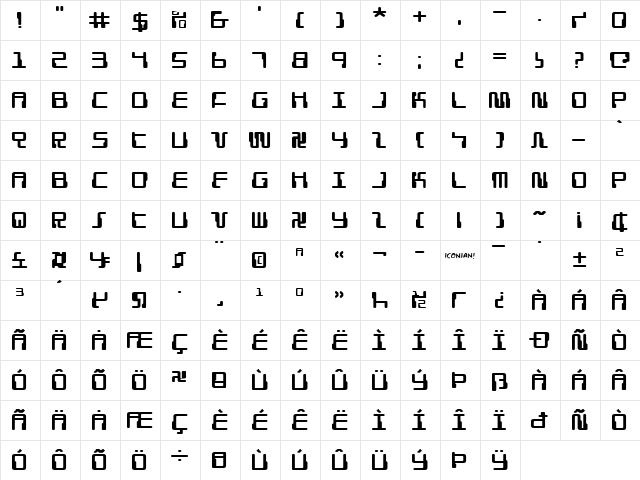
Droid Lover Expanded Expanded
Design Context for Droid Lover Expanded Typeface
Droid Lover Expanded is a composed and adaptable typeface that performs quietly and consistently across a wide range of design contexts.
Pro Tip: Use Droid Lover Expanded in both headline and body roles to test its range before committing to a single application.